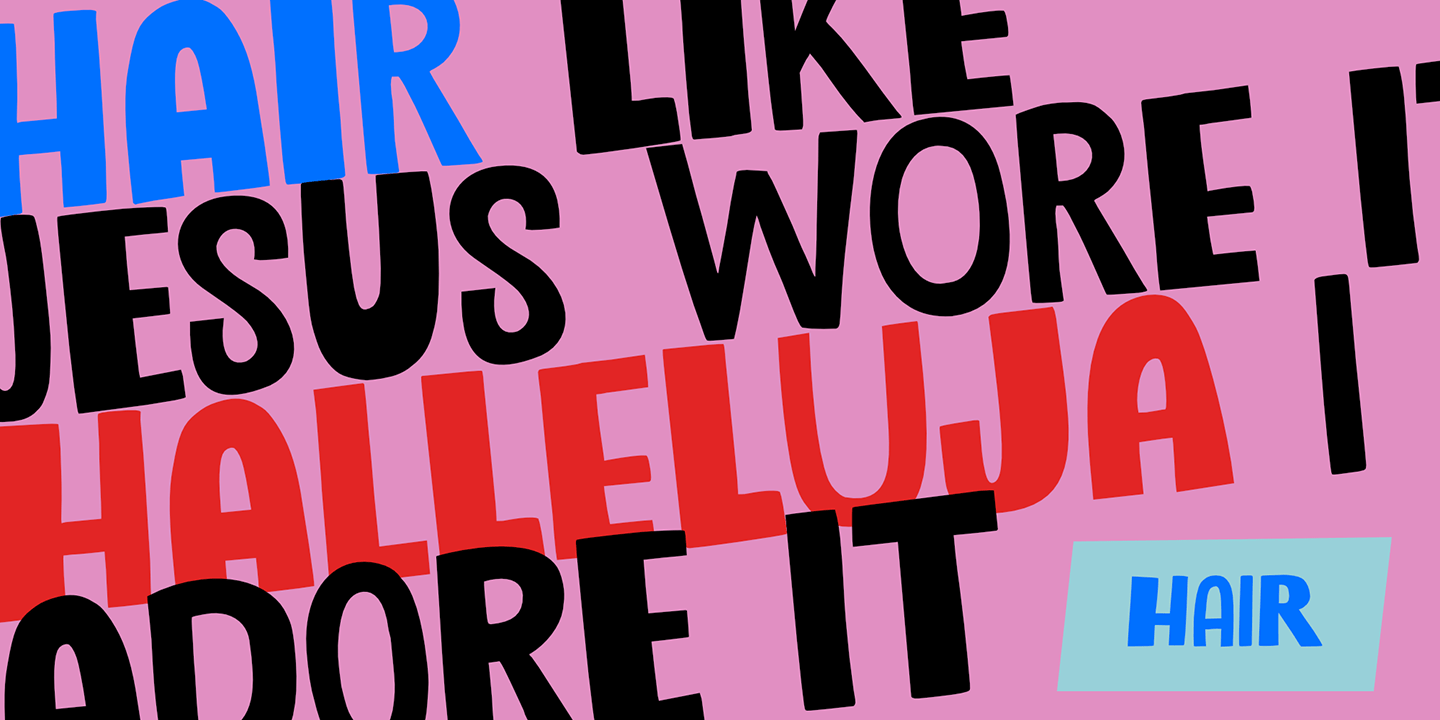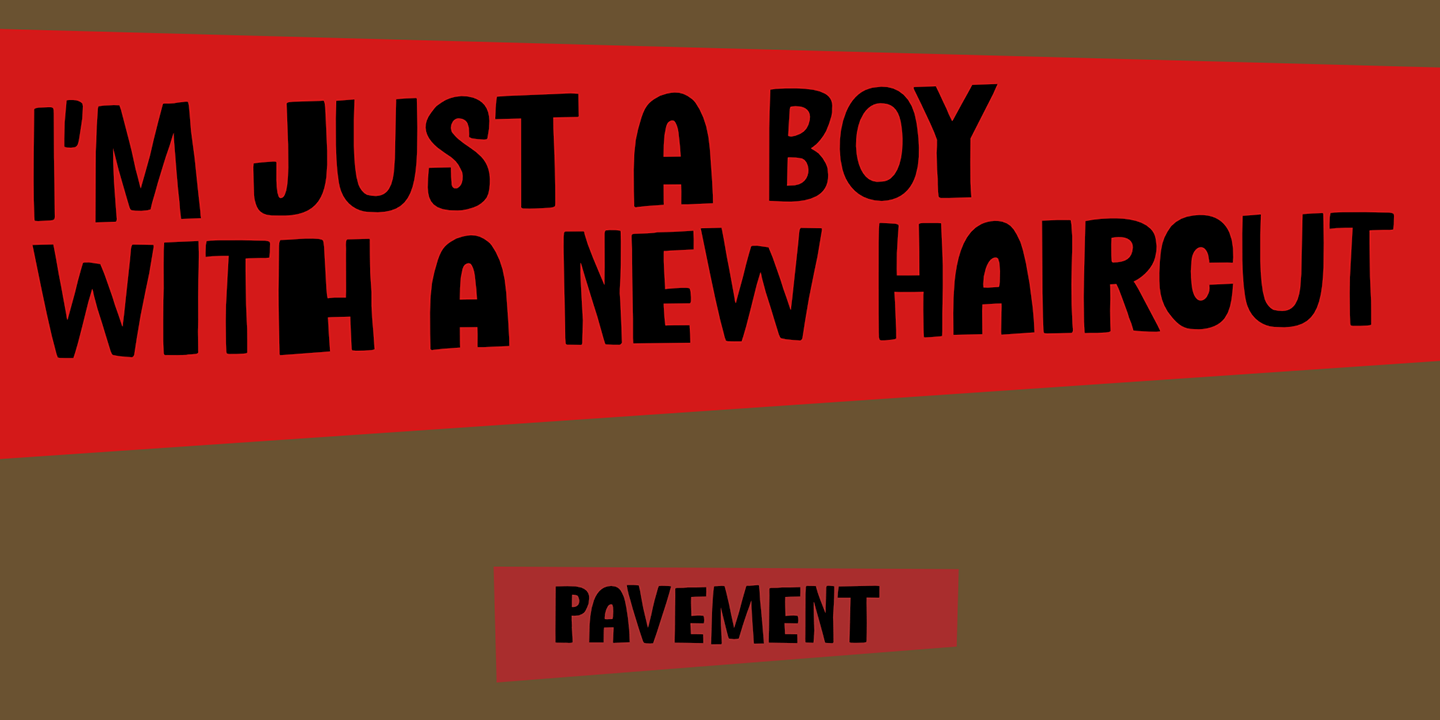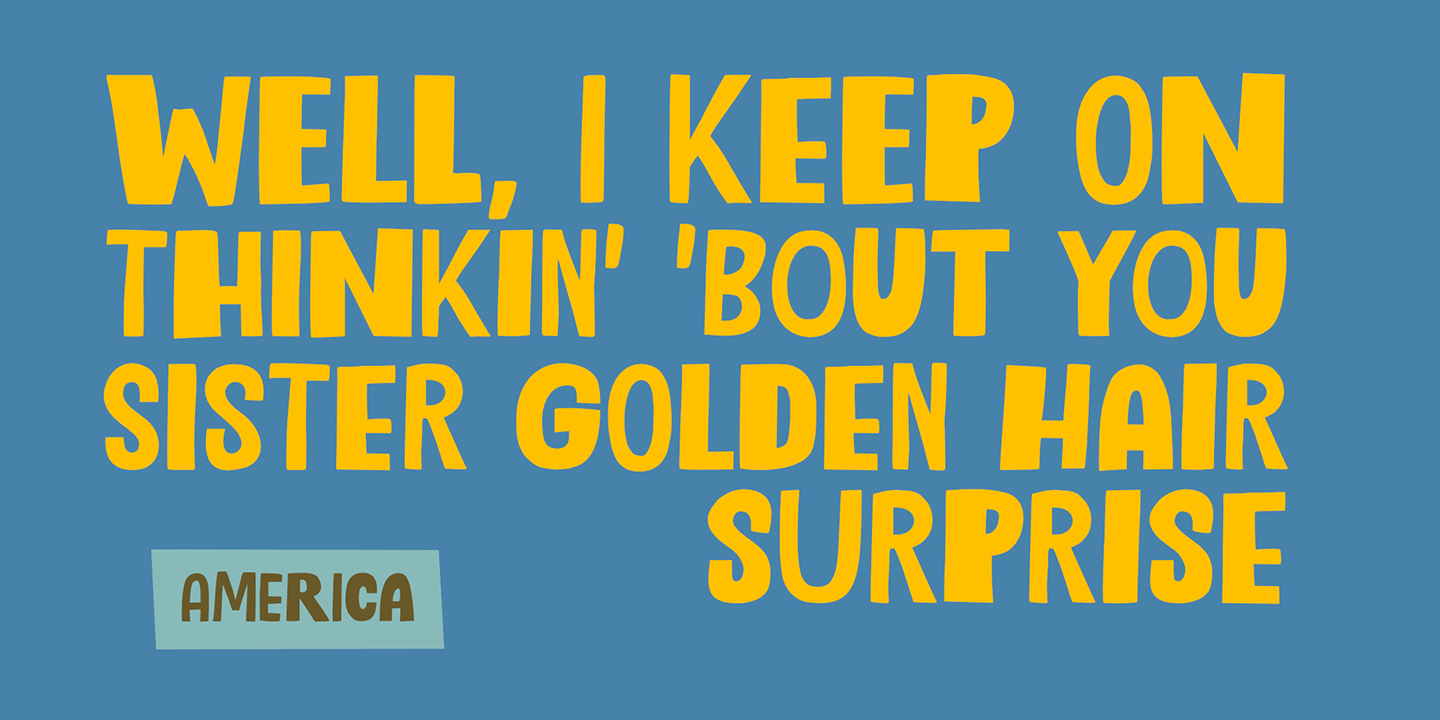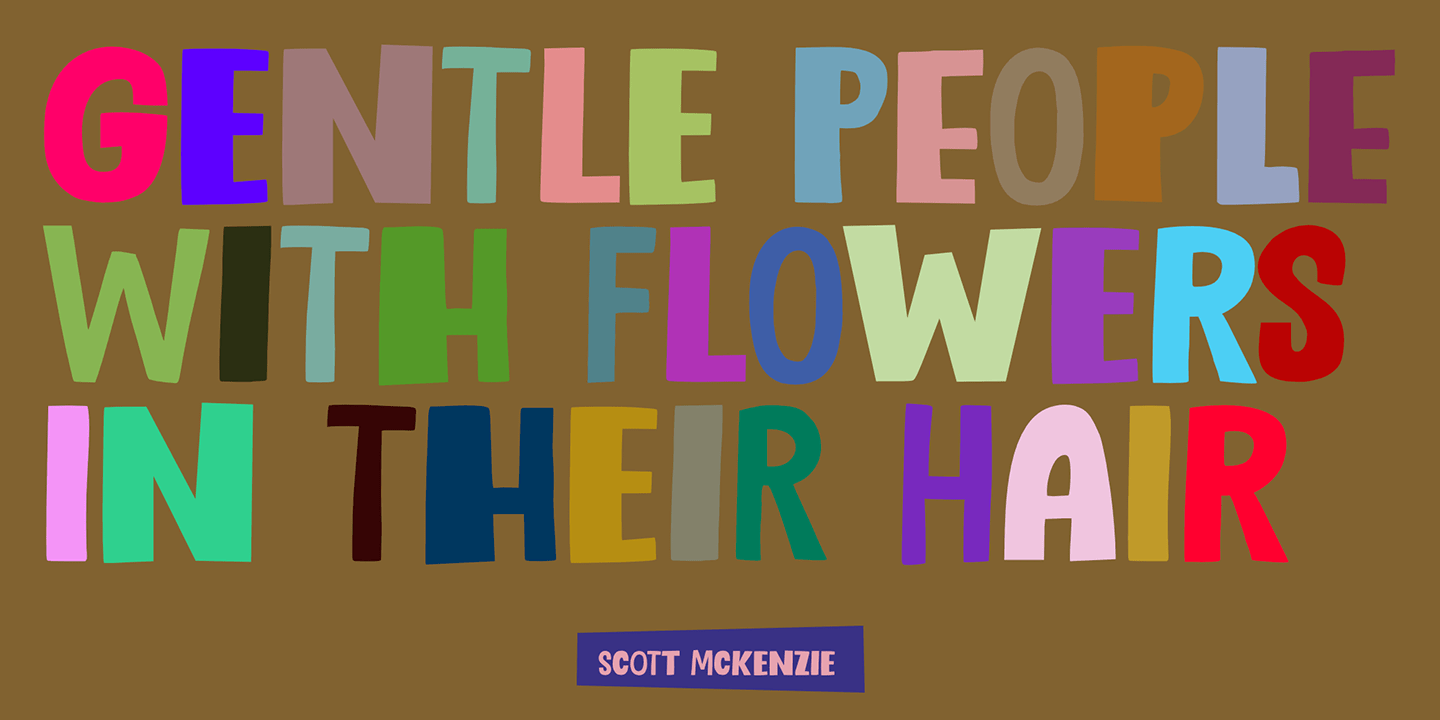
Holistic Haircut
Font Family by Hanoded
My son Sam turned 12 and all of a sudden he cares for his hairdo. It needs to be just so, not too long, not too short, with a lot of gel to hold it in place. ;-) He just had a haircut when I was creating this font, so now you know where the Haircut part comes from. The Holistic part is something that sort of sounded ok.
Holistic Haircut is a nice, handmade display font. It comes with wider and narrower glyphs for the upper and lower case AND a set of alternates that likes to party with the rest.